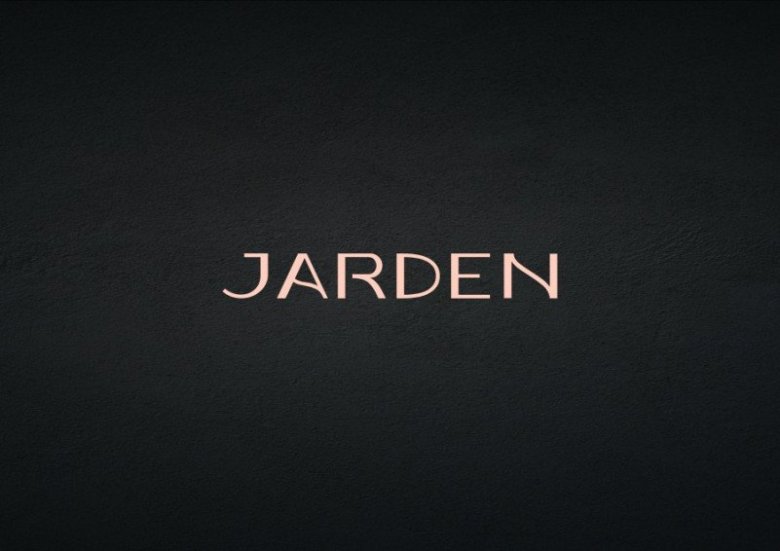
JARDEN Sans Serif Font
JARDEN Sans Serif Font is the part of a strong and modern display family. Made from font designer named Artsigma Design. This typeface both impressive at display sizes and easily readable in text size, while the sharp shapes of the triangular sans and the distinctive letter shapes show their strength in logo design and impressive editorial use.